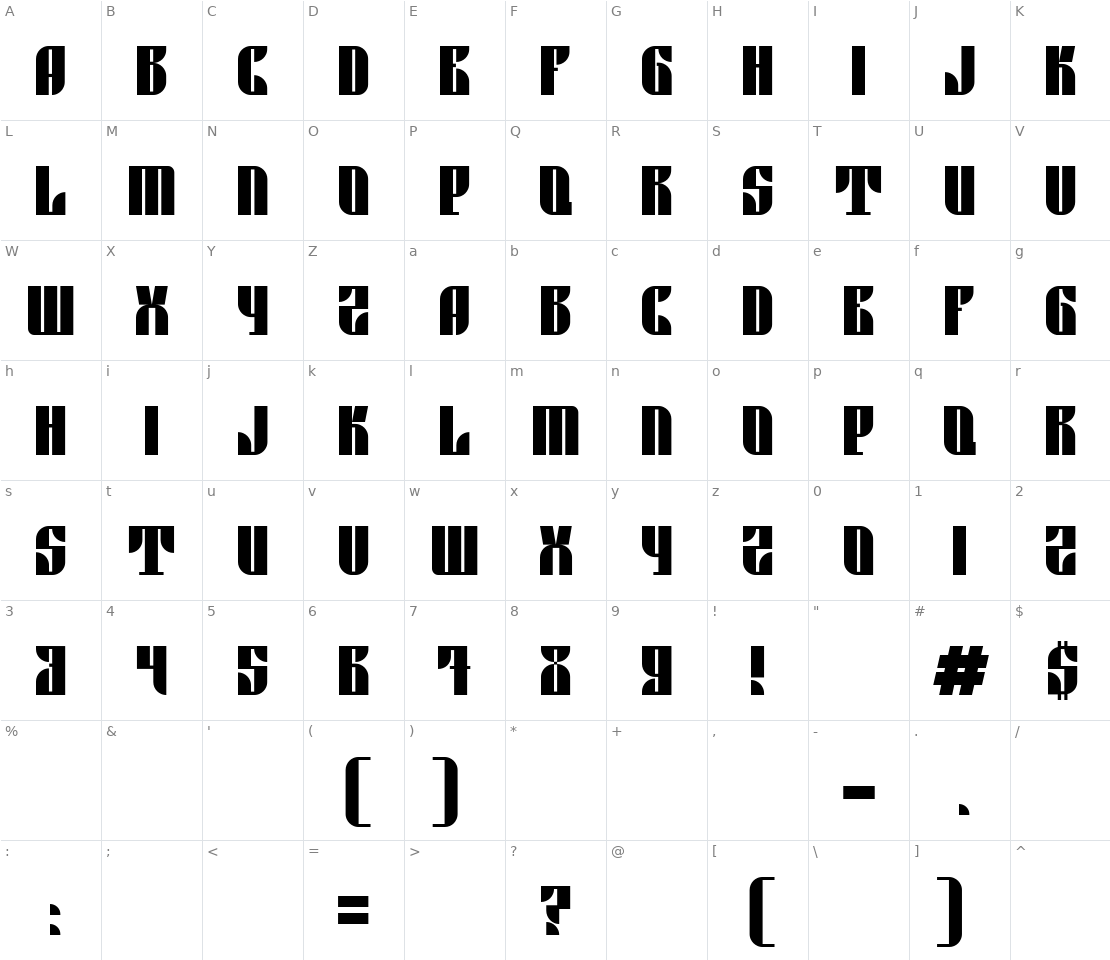
Black Skull
Black Skull is a heavy, condensed stencil face from Théo d'Aigremont with a dark, gothic intensity that feels like it belongs on war propaganda or horror posters. The bold letterforms are tightly packed and dramatic, with stencil breaks that add a militaristic edge to the already imposing silhouette. Built for headlines and poster work where you need something that looks ominous and authoritative at large sizes.